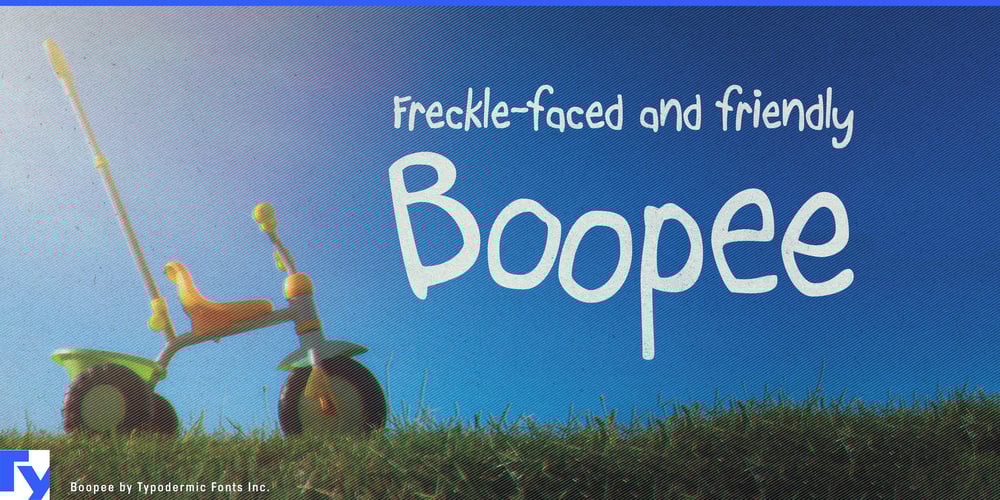
Boopee
Boopee font
Boopee Font Family was designed by Ray Larabie and published by Typodermic. Boopee contains 2 styles and family package options. Introducing Boopee, a typeface that celebrates the beauty of imperfection. In a world obsessed with flawlessness, Boopee dares to be different, offering a refreshing blend of charm, personality, and unexpected elegance.At first glance, Boopee’s quirky shapes and uneven lines might catch you off guard. But look closer, and you’ll discover a typeface that captures the essence of human touch in every stroke. Boopee’s true magic lies in its ability to remain highly legible despite its playful demeanor. This delicate balance makes it a versatile choice for a wide range of applications, from whimsical branding to engaging social media content. It’s the typographic equivalent of a warm smile—inviting, approachable, and impossible to ignore.The custom ligatures are where Boopee truly shines. These unique letter combinations add a layer of personalization to your designs, allowing you to create text that feels handcrafted and one-of-a-kind. Whether you’re designing an artisanal product label or crafting a heartfelt message, Boopee’s ligatures infuse your work with a touch of bespoke charm.Available in both standard and bold weights, Boopee offers flexibility to suit your creative vision. Use the standard weight for a subtle, playful whisper, or opt for bold when you need your message to sing out loud and clear. Boopee speaks the language of authenticity across cultures, supporting most Latin-based European writing systems. From the bustling streets of Berlin to the sun-drenched plazas of Lisbon, Boopee ensures your message resonates with genuine warmth and character.In a sea of polished perfection, Boopee stands out as a beacon of authenticity. Embrace its charming flaws, and watch as your typography takes on a life of its own—one beautifully imperfect character at a time.